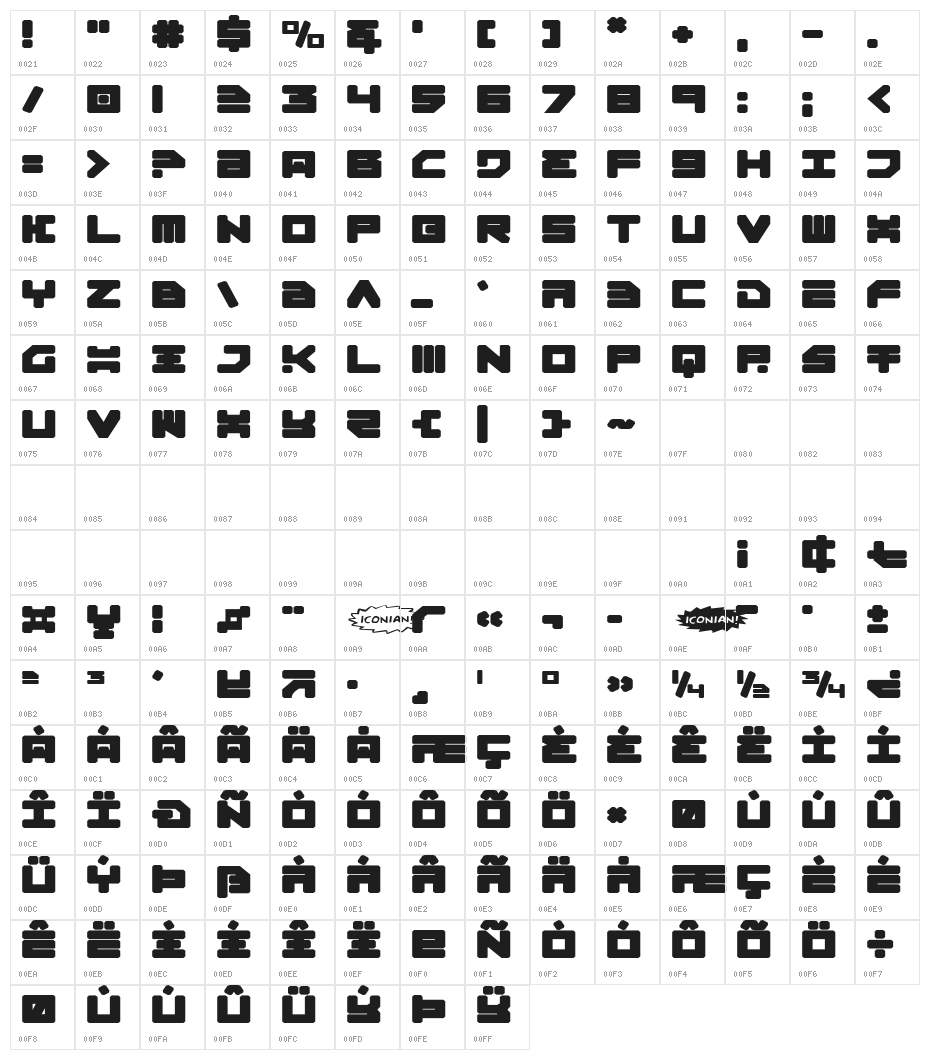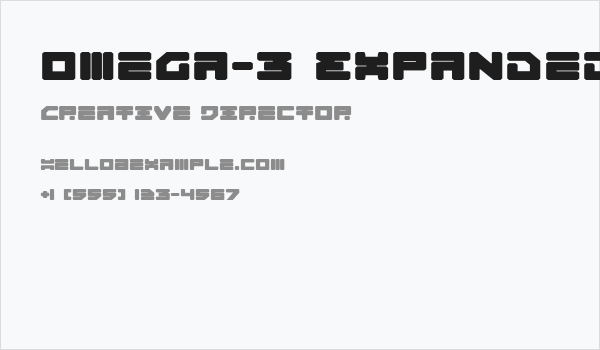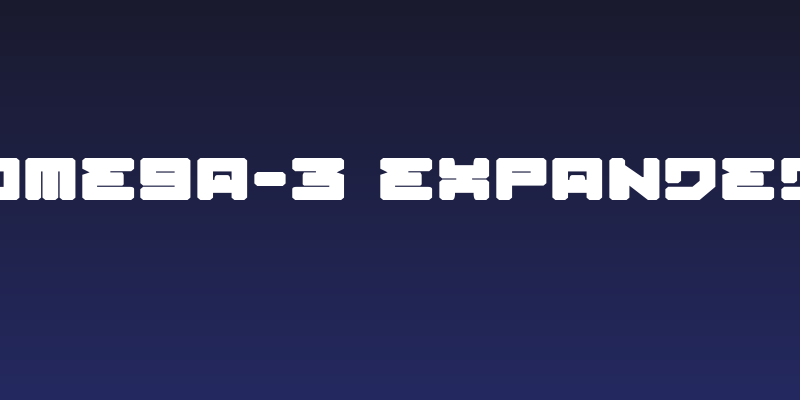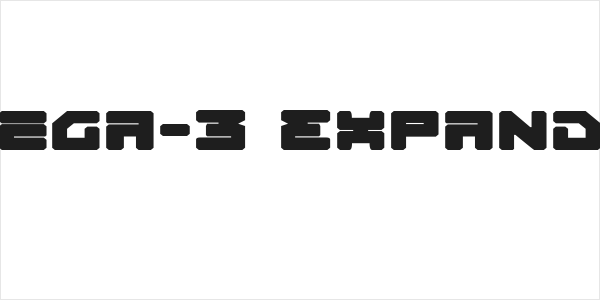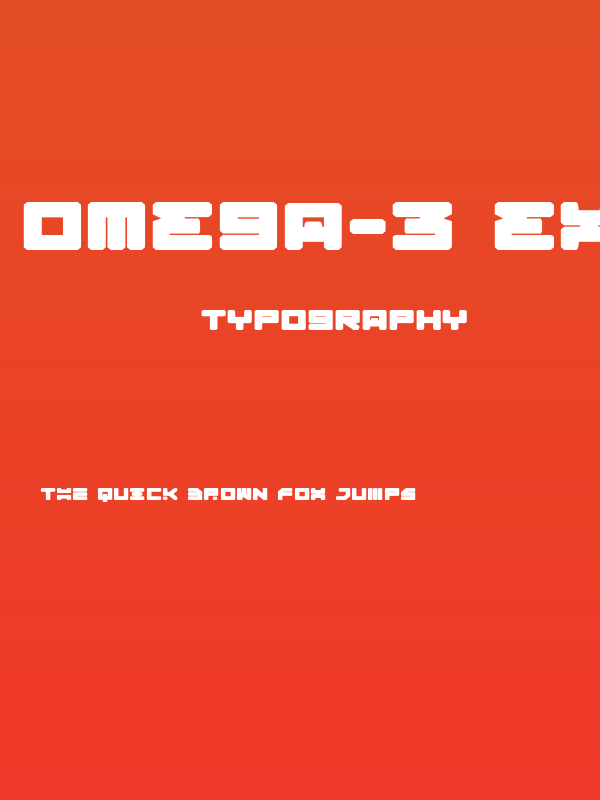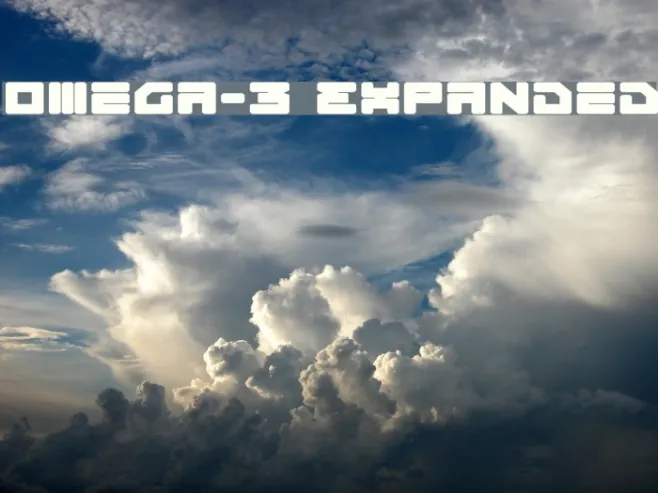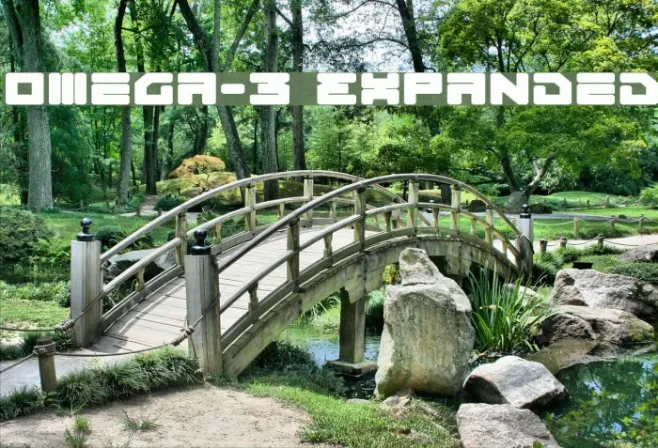
Omega-3 Expanded Font
Omega-3 Expanded Description
This font features a bold, futuristic design with a distinctly geometric structure. The characters are wide and blocky, with a consistent thickness throughout, giving it a strong and impactful appearance. The rounded edges soften the otherwise rigid forms, adding a touch of modernity. The uppercase and lowercase letters maintain a uniform style, while the numerals and special characters integrate seamlessly with the overall aesthetic. This font's expanded width and solid presence make it ideal for attention-grabbing designs.
| Proposed Projects | Ideal for sci-fi themed projects, technology branding, video game titles, and modern posters. |